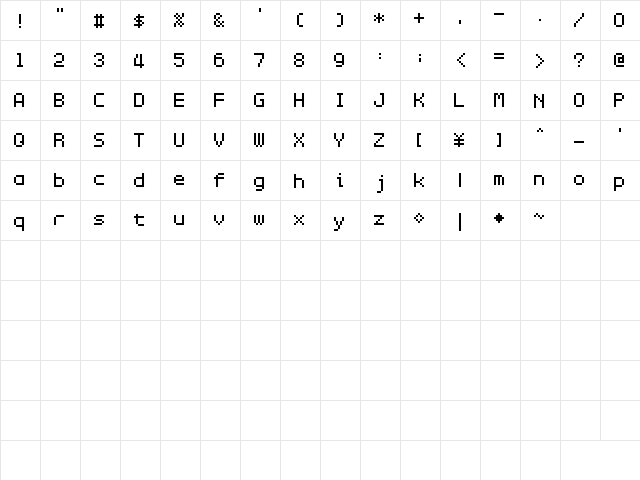
MW ISLET 12point Font Preview
MW ISLET 12point
MW ISLET 12point Font Details
| Style | 12point |
Design Context for MW ISLET Typeface
MW ISLET is a composed and adaptable typeface that performs quietly and consistently across a wide range of design contexts.